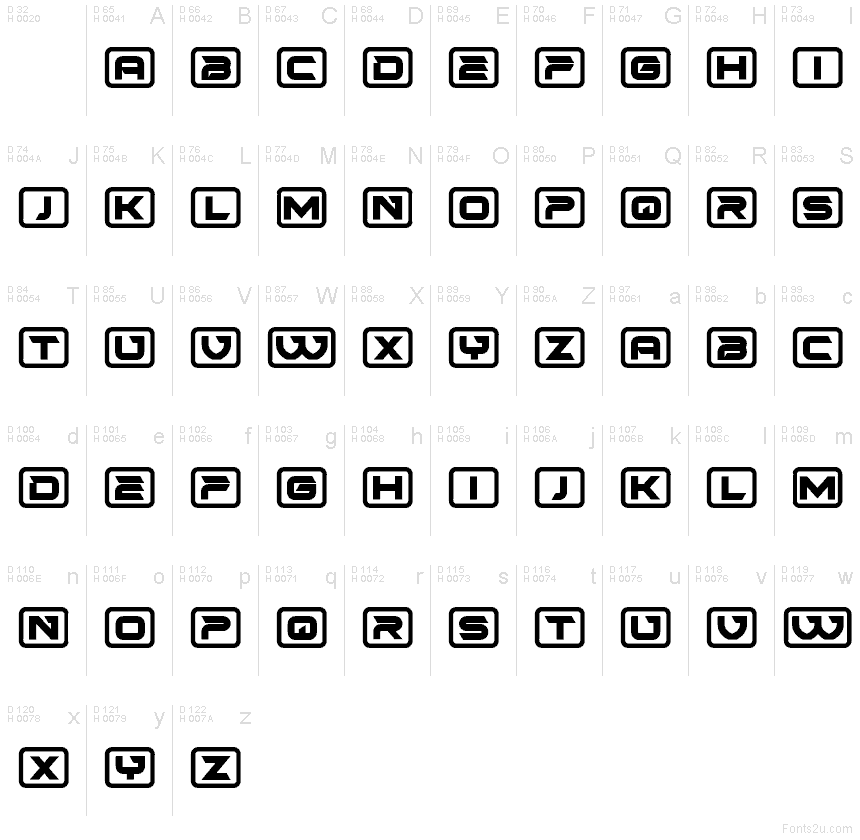
Hornets Capitals Book Regular
Hornets Capitals Book font by Vladimir Nikolic is a free decorative display typeface with a bold, tiled personality. Each letter sits inside a compact square frame, with chunky strokes and a clean white inline that makes the text feel like a row of retro arcade buttons or jersey patches. The tight, even rhythm across the Hornets Capitals family gives your words a strong, stamped presence that reads fast and hits hard at a glance.
Using Hornets Capitals Book, you can punch up sports branding, team posters, gaming titles, YouTube thumbnails, event signage, and bold sticker or merch designs. This free font thrives at large sizes where its boxed structure and inky outlines can really lock together into a solid bar of type. Pair it with a simple geometric sans-serif for smaller text to keep things readable while Hornets Capitals handles the attitude.